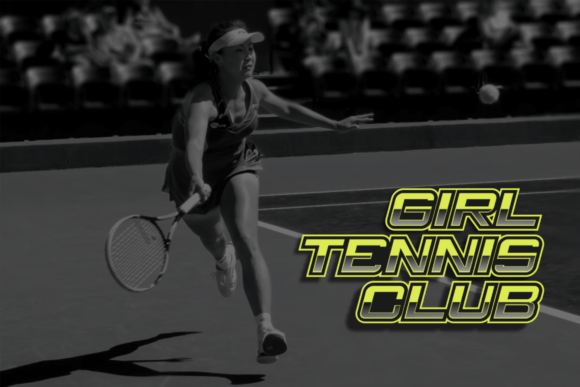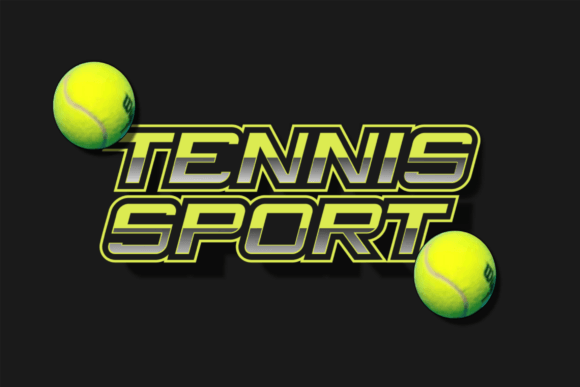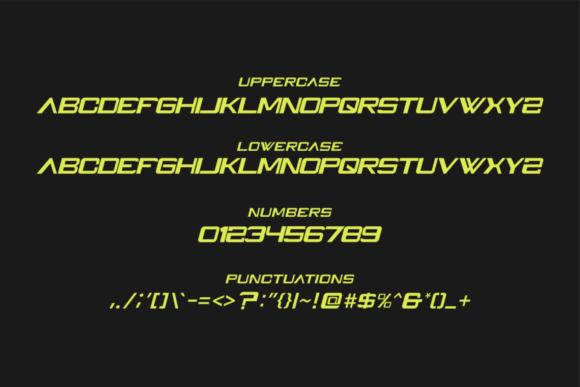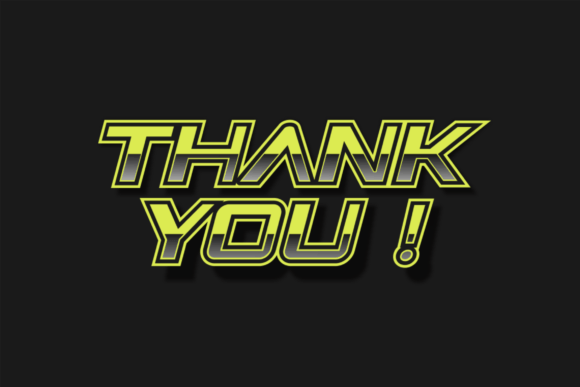
Introducing Declop Font: The Modern, Bold, and Authentic Sans Serif for Your Branding Needs
In the world of design, fonts play a crucial role in conveying the message and aesthetic of a brand. A well-chosen font can elevate a brand’s identity, making it more recognizable and memorable. If you’re a designer or crafter looking for a font that embodies modernity, boldness, and authenticity, look no further than Declop Font. This sans serif font is specifically designed to meet the demands of various branding projects, including logos, t-shirt printing, exports, and more.
What Makes Declop Font Stand Out?
Declop Font boasts a unique blend of modernity and classic simplicity, making it an outstanding choice for designers and crafters. Its bold and authentic sans serif design ensures that your brand stands out in a crowded market. Here are some key features that make Declop Font a top pick:
- Modern Design: Declop Font features a contemporary design that is perfect for brands looking to make a statement. Its clean lines and sleek appearance make it ideal for a wide range of applications.
- Bold and Authentic: The font’s bold and authentic sans serif design ensures that your brand message is conveyed with confidence and clarity.
- Versatility: Declop Font is suitable for various branding projects, including logos, t-shirt printing, exports, and more. Its versatility makes it an excellent addition to any designer’s toolkit.
- Wide Range of Contexts: Whether you’re designing a logo, brochure, or website, Declop Font looks outstanding in a wide range of contexts. Its adaptability ensures that your brand’s message is consistently conveyed across different mediums.
Why Choose Declop Font for Your Branding Project?
With so many fonts available, why should you choose Declop Font for your branding project? Here are some compelling reasons:
- Unique Identity: Declop Font helps create a unique identity for your brand, setting it apart from competitors.
- Professionalism: The font’s modern and bold design conveys professionalism, making it perfect for businesses looking to establish a strong brand presence.
- Easy to Read: Declop Font is designed to be easy to read, ensuring that your brand’s message is communicated clearly and effectively.
- Customization: The font’s versatility allows for easy customization, making it simple to adapt to your brand’s specific needs.
How to Use Declop Font in Your Design Projects?
Using Declop Font in your design projects is straightforward. Here are some tips to get you started:
- Logo Design: Use Declop Font to create a bold and memorable logo that represents your brand.
- T-Shirt Printing: The font’s clear and easy-to-read design makes it perfect for t-shirt printing.
- Digital Applications: Use Declop Font in digital applications such as websites, social media, and email marketing campaigns to create a consistent brand identity.
In conclusion, Declop Font is an excellent choice for designers and crafters looking for a modern, bold, and authentic sans serif font for their branding projects. Its versatility, readability, and unique design make it an outstanding addition to any design toolkit. Whether you’re creating a logo, t-shirt, or digital application, Declop Font is sure to elevate your brand’s identity and make it more recognizable.